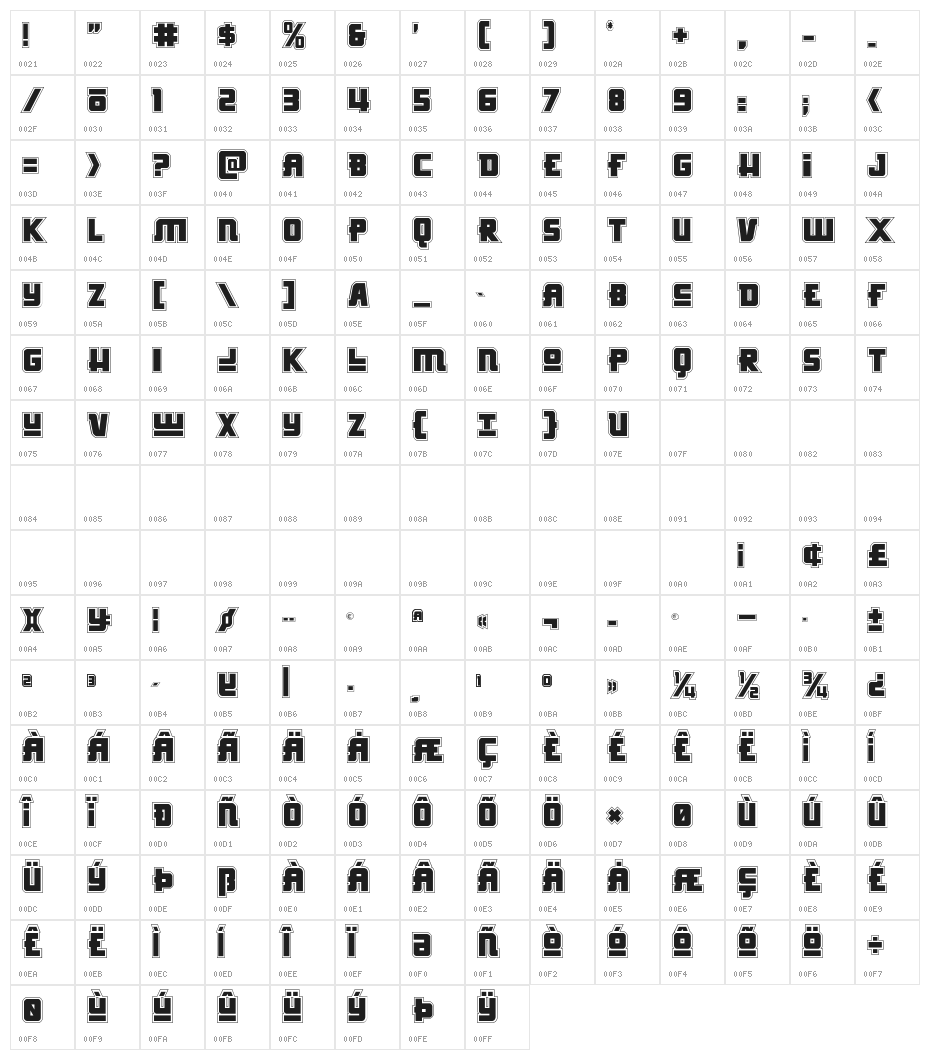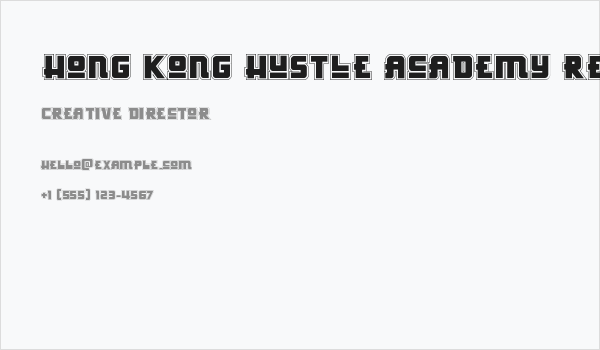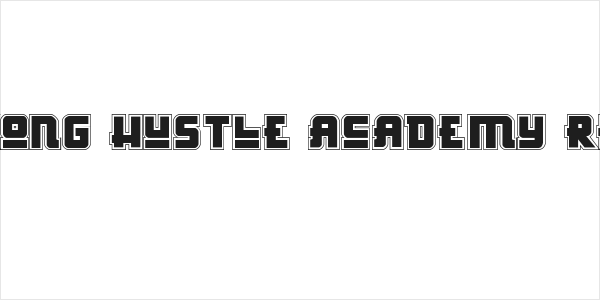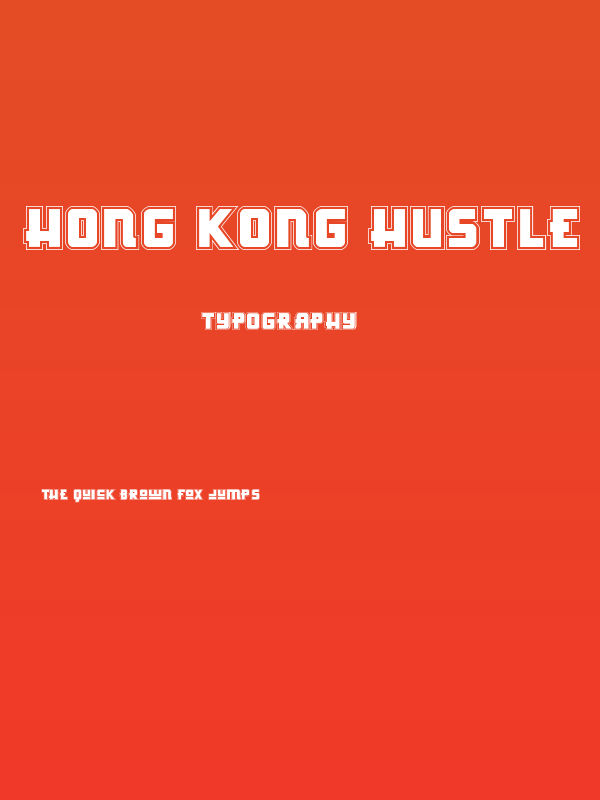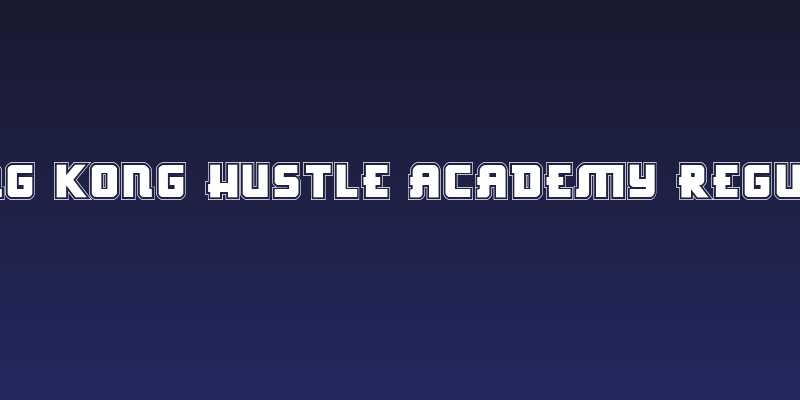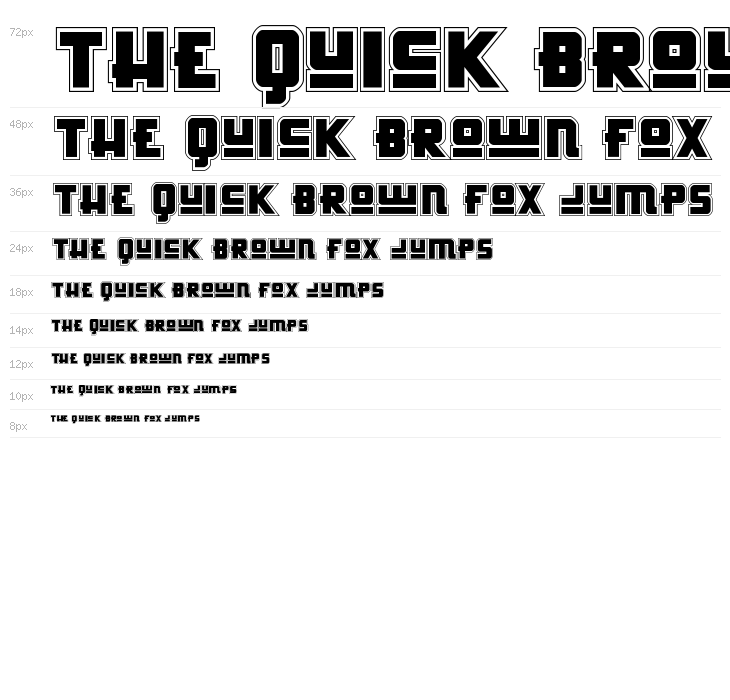
Hong Kong Hustle Academy Regular Font
Hong Kong Hustle Academy Regular Description
This font features a bold, geometric design with a strong presence. Each character is outlined with a thick border, creating a striking and impactful appearance. The letters are uppercase and have a blocky, angular style, reminiscent of urban and industrial themes. The numbers and special characters follow the same design principles, ensuring consistency across all glyphs. The font's unique style makes it ideal for attention-grabbing headlines and titles.
| Proposed Projects | Ideal for urban-themed posters, video game titles, branding for tech companies, and any project requiring a bold, modern aesthetic. |